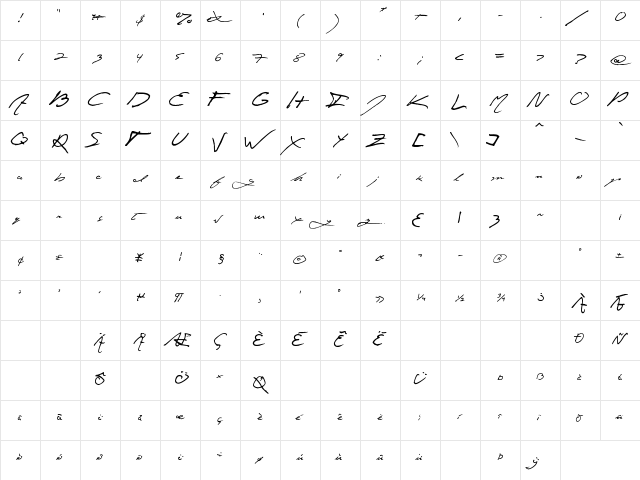
jey Regular Font Preview
jey Regular
jey Regular Font Details
Design Context for jey Typeface
jey is a composed and adaptable typeface that performs quietly and consistently across a wide range of design contexts.